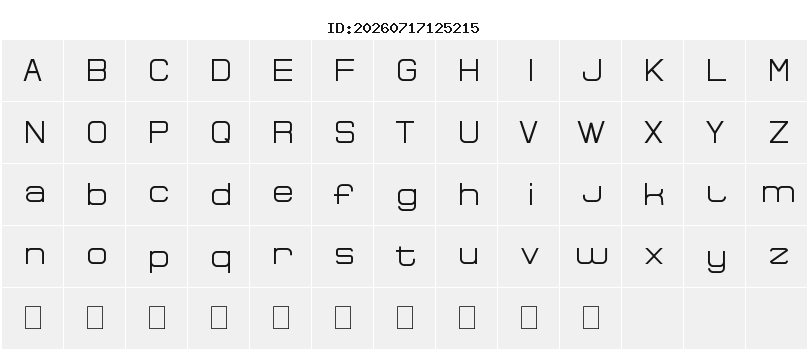
Bocemina Preview
• Font Name: Bocemina
• Designer: Erion Dyrmishi
About Bocemina.ttf
Bocemina.ttf is a modern, elegant sans-serif font designed for ultimate readability and visual harmony. Perfect for branding, headlines, web design, and print materials.